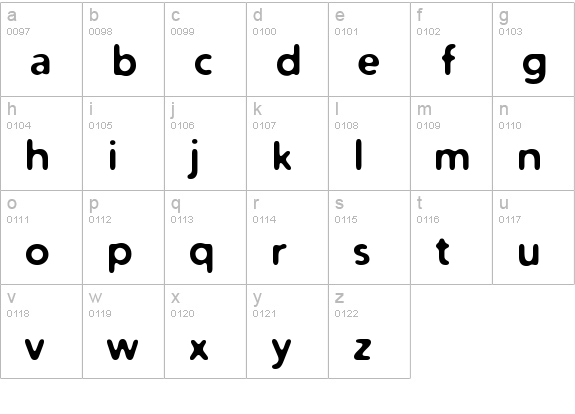
Distro Bold Font Details
Distro Bold is a strong, high-contrast variant in the Distro typeface family \xE2\x80\x94 well suited to headlines, attention-grabbing titles, and strong calls-to-action.
Distro Bold font is a striking and bold typeface that exudes confidence and power. With its thick and strong letterforms, this font is perfect for headlines, titles, logos, and any design project that requires a strong visual impact. Designed with a modern and edgy aesthetic, Distro Bold font commands attention and adds a touch of sophistication to any design. Each letter is meticulously crafted, ensuring clarity and legibility even at smaller sizes. One of the remarkable aspects of Distro Bold font is that it is freely available to download at FontsMarket.com. This means that designers, creatives, and typography enthusiasts can access this exceptional font without any cost. Its availability for free allows for greater accessibility and encourages experimentation and creativity. Whether it's for a website, poster, packaging, or any other design endeavor, Distro Bold font will surely make a statement and elevate your project to new heights. Its versatility and strong presence make it a valuable addition to any designer's toolkit. So, if you're looking for a bold and impactful font that doesn't compromise on style and professionalism, look no further than Distro Bold. Download it for free at FontsMarket.com and unlock a world of design possibilities. Embrace the power of Distro Bold font and let your creativity shine.